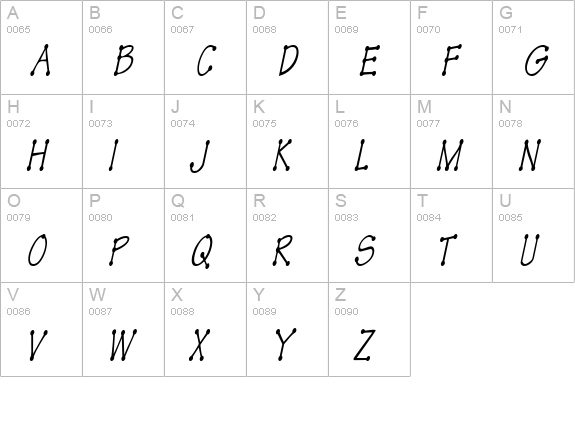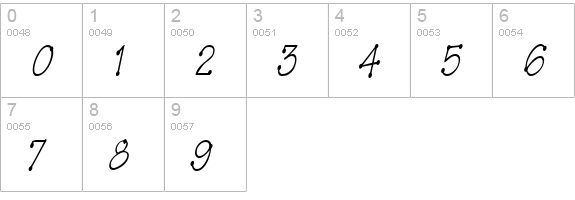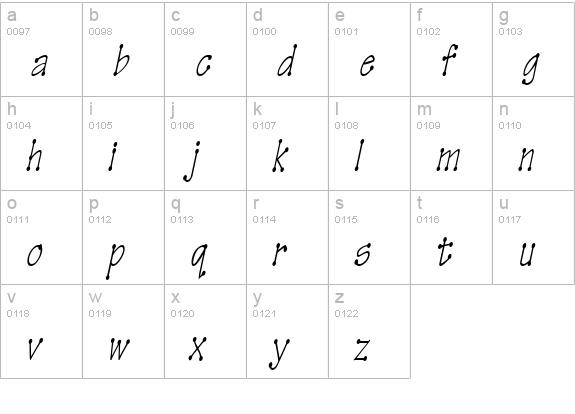
TinkerToyCondensed Oblique Font Details
TinkerToyCondensed Oblique is a distinctive, italic variant in the TinkerToyCondensed typeface family \xE2\x80\x94 well suited to design and typography projects.
Introducing TinkerToyCondensed Oblique font, a delightful and playful typeface that adds a touch of whimsy to any design project. With its condensed and oblique style, this font exudes a sense of forward motion and dynamic energy. TinkerToyCondensed Oblique font is perfect for a variety of creative endeavors, from children's book illustrations to playful branding and packaging designs. Its unique character shapes and slanted angles give it a distinct and charming appearance that will captivate and engage your audience. One of the best things about TinkerToyCondensed Oblique font is that it is free! Yes, you read that right. This fantastic font is freely available to download at FontsMarket.com. Now you can add a touch of whimsy to your designs without breaking the bank. The versatility of TinkerToyCondensed Oblique font is truly remarkable. It can be used for both headlines and body text, giving your designs a cohesive and polished look. The condensed nature of the font allows for more text to fit in a limited space, making it a great choice for projects that require a lot of information without sacrificing visual appeal. Whether you're designing a poster, a logo, or a website, TinkerToyCondensed Oblique font will bring a sense of playfulness and creativity to your work. Its quirky and dynamic letterforms are sure to make a lasting impression on your audience. So why wait? Go ahead and download TinkerToyCondensed Oblique font for free at FontsMarket.com today, and unlock a world of endless design possibilities. Let your imagination run wild and watch as your creations come to life with the help of this delightful and freely available typeface.